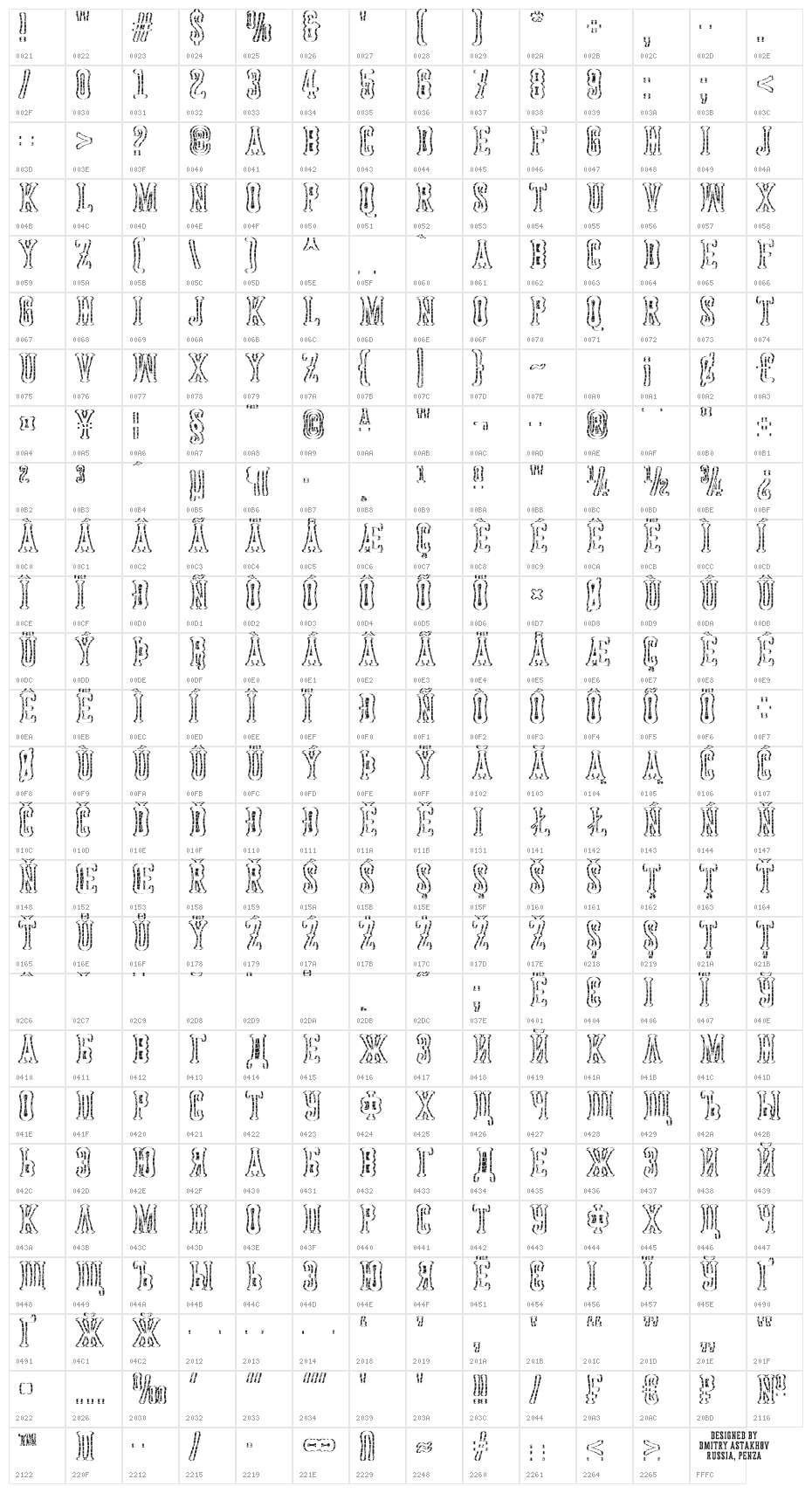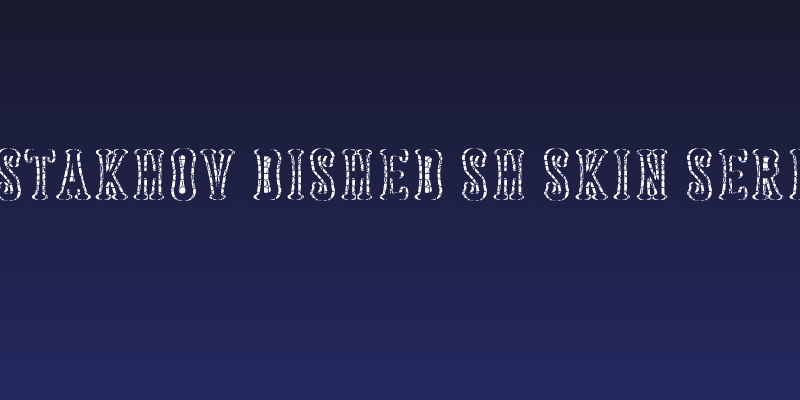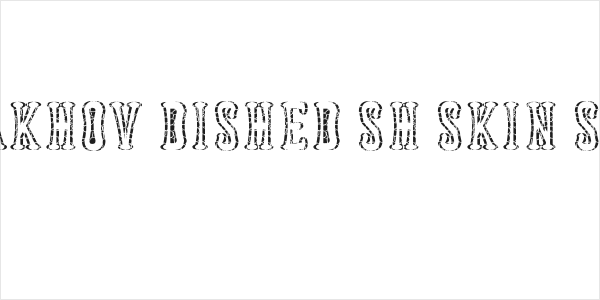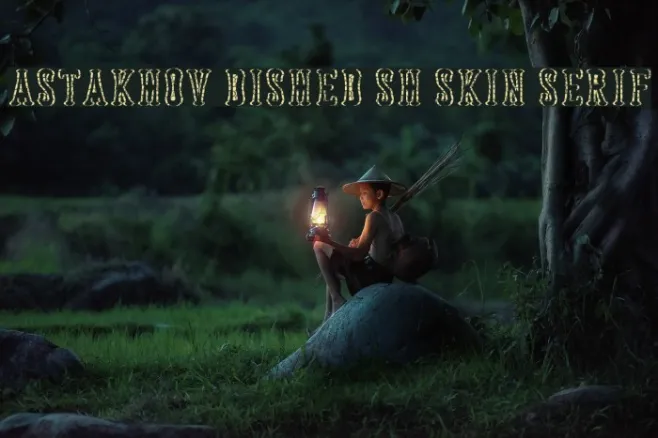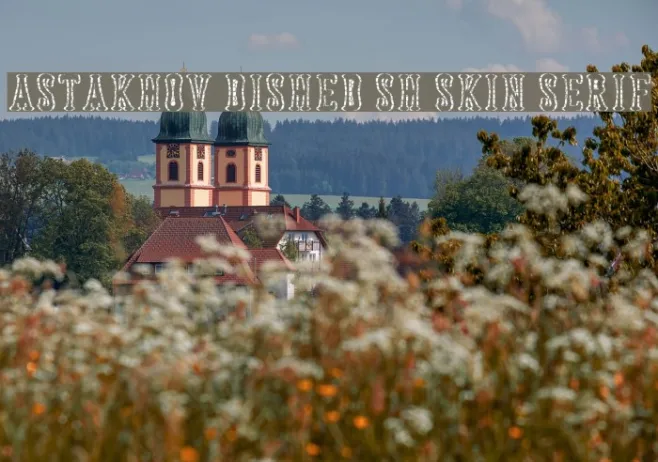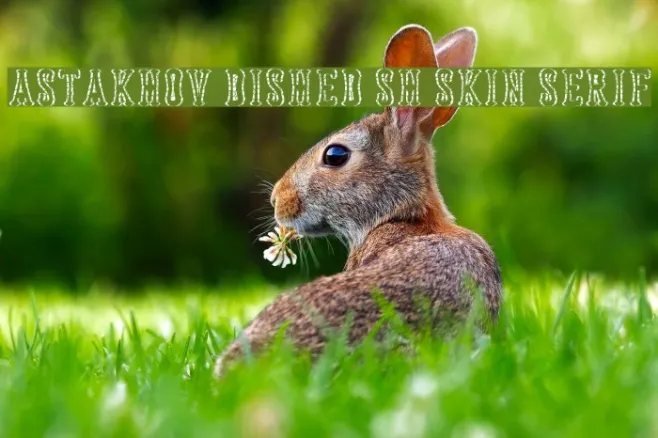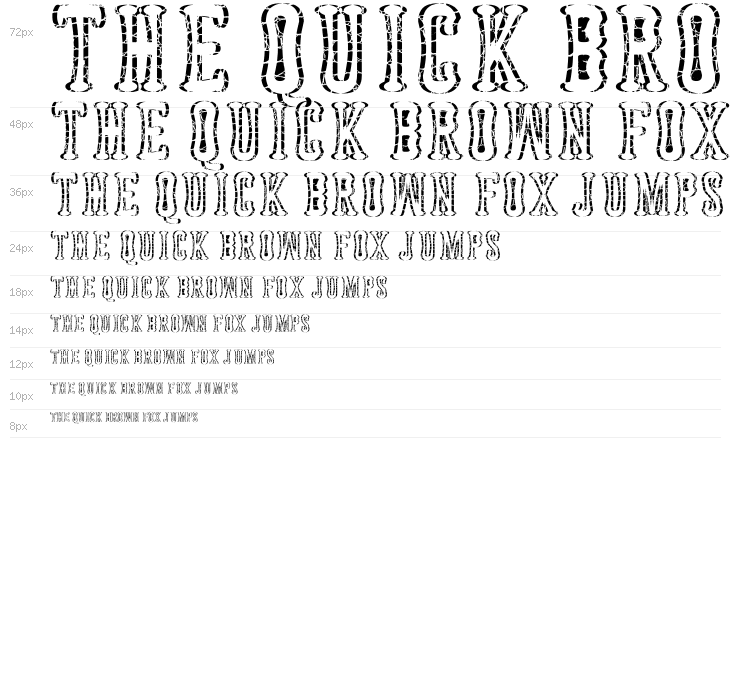
Astakhov Dished Sh Skin Serif Font
Astakhov Dished Sh Skin Serif Description
This font features a unique and artistic design, characterized by its bold, stencil-like appearance. The letters are crafted with a distressed texture, giving them a rugged and vintage feel. Each character is outlined with a thick border, enhancing its visibility and impact. The font maintains a consistent height across all characters, ensuring uniformity. Its decorative style makes it suitable for creative projects that require a distinctive and eye-catching typeface. The numbers and special characters follow the same design principles, providing a cohesive look throughout.